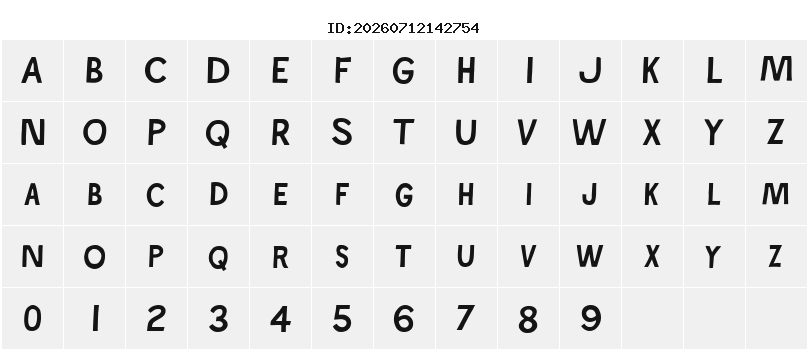
Ray Johnson Preview
• Font Name: Ray Johnson
• Full Font Name: Ray Johnson
About Ray Johnson.ttf
Ray Johnson.ttf is a modern, elegant sans-serif font designed for ultimate readability and visual harmony. Perfect for branding, headlines, web design, and print materials.